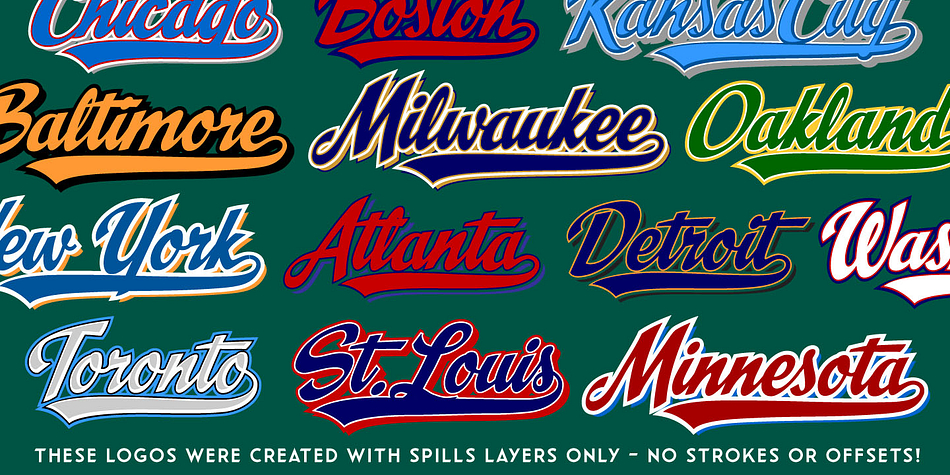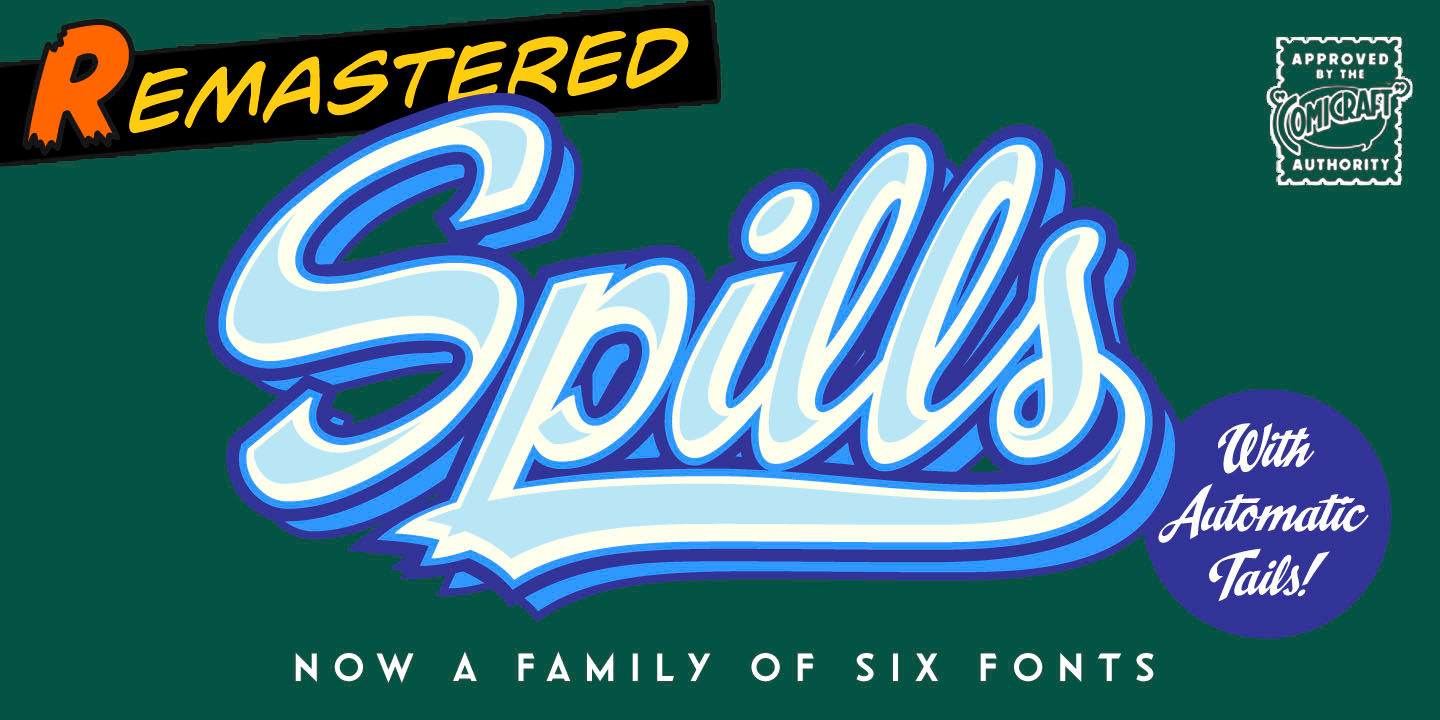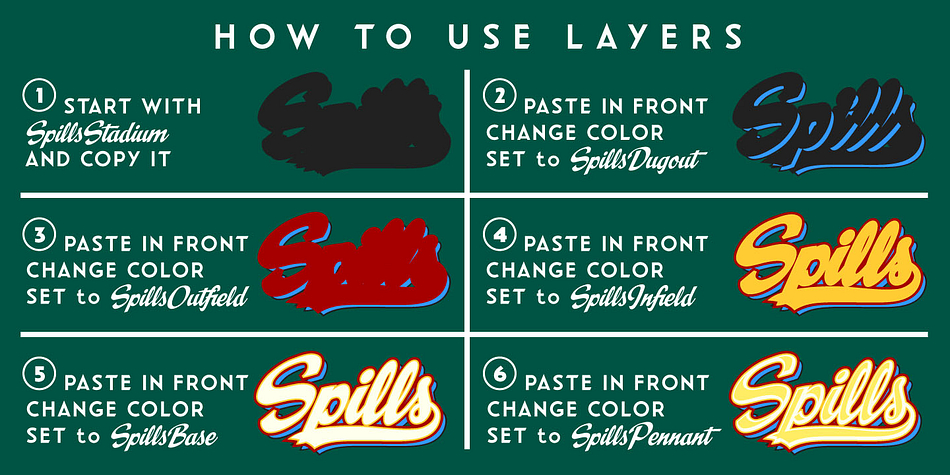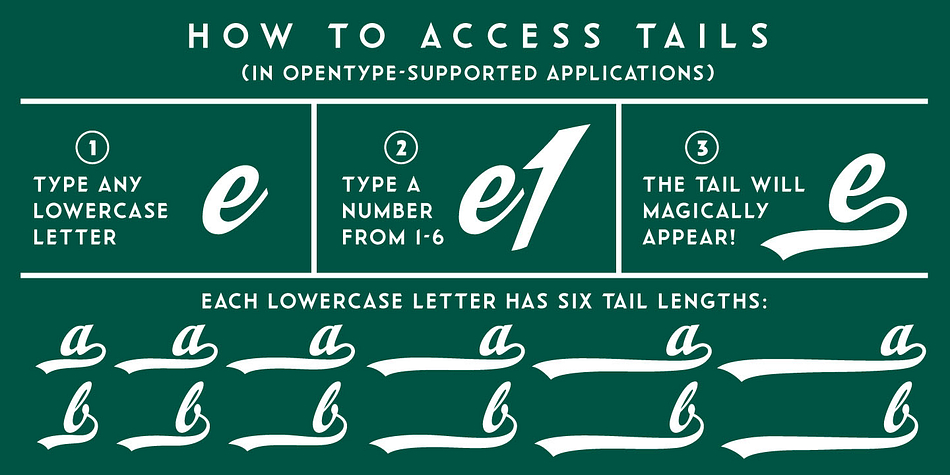
Designed by John Roshell, Spills is a brush script font family. This typeface has six styles and was published by Comicraft.
The infield dirt is raked, the outfield grass is mowed and the baselines chalked. So grab a beer, smother a stadium dog with mustard and relish, take a seat on the bleachers and get ready—that handsome devil SPILLS is back on the mound and ready for a comeback!
It’s true, Coach John JG Roshell has coaxed the wily veteran out of retirement, and has returned to the field with the wisdom of extra years and the addition of five new weight(s): Stadium, Dugout, Outfield, Infield, Pennant and Base. The stadium is packed to capacity and we’re pretty sure the first time he’s at the plate, it’s gonna be a Home Run!